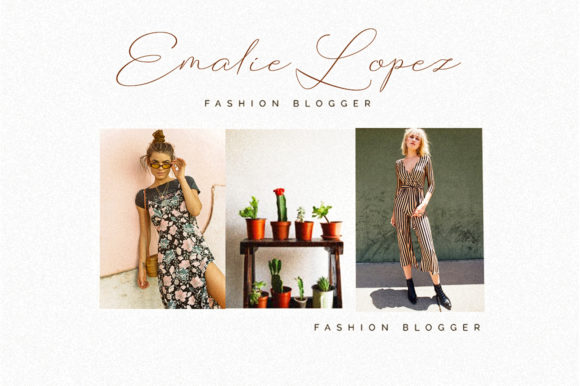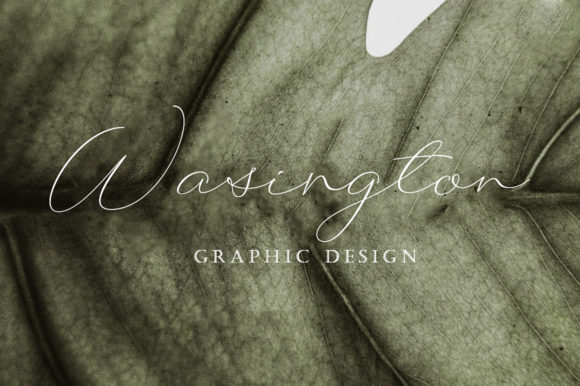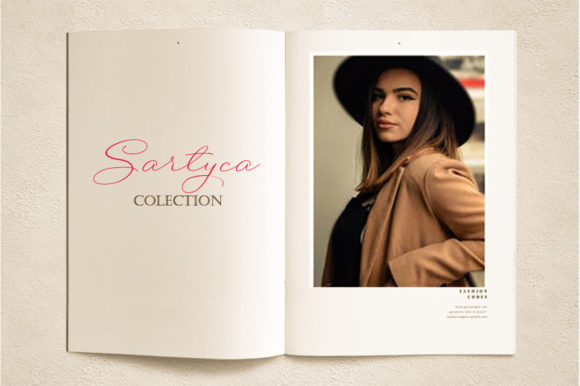
Introduction to Botterill Font
Botterill Signature is a flowing handwritten font.
It features a classy style that makes it perfect for stationery, greeting cards, wedding invitations and much more This font is PUA encoded which means you can access all of the cute glyphs and swashes with ease.